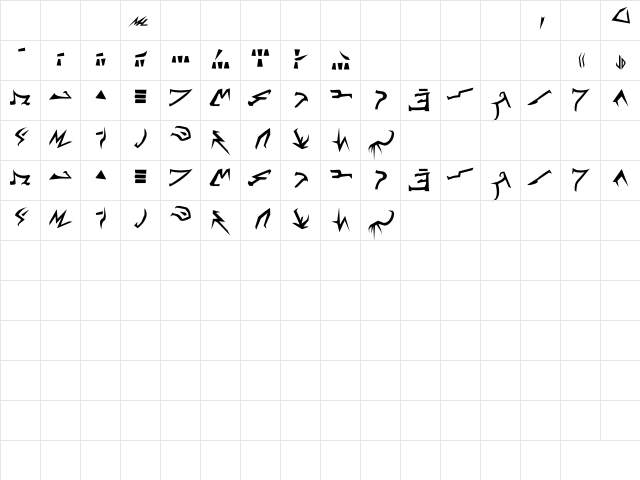
Shadow Bold
Design Context for Shadow Typeface
Shadow brings ornamental detail and strong personality to headlines and identities, where visual impact matters more than quiet functionality. Its bold stroke weight gives it real presence on the page.
Font Pairing: Pair with a clean neutral sans-serif for body copy to let Shadow's character lead without overwhelming the composition.
Pro Tip: Use Shadow exclusively at display sizes — it was designed to be seen, not read at length. Let a neutral companion handle body copy.